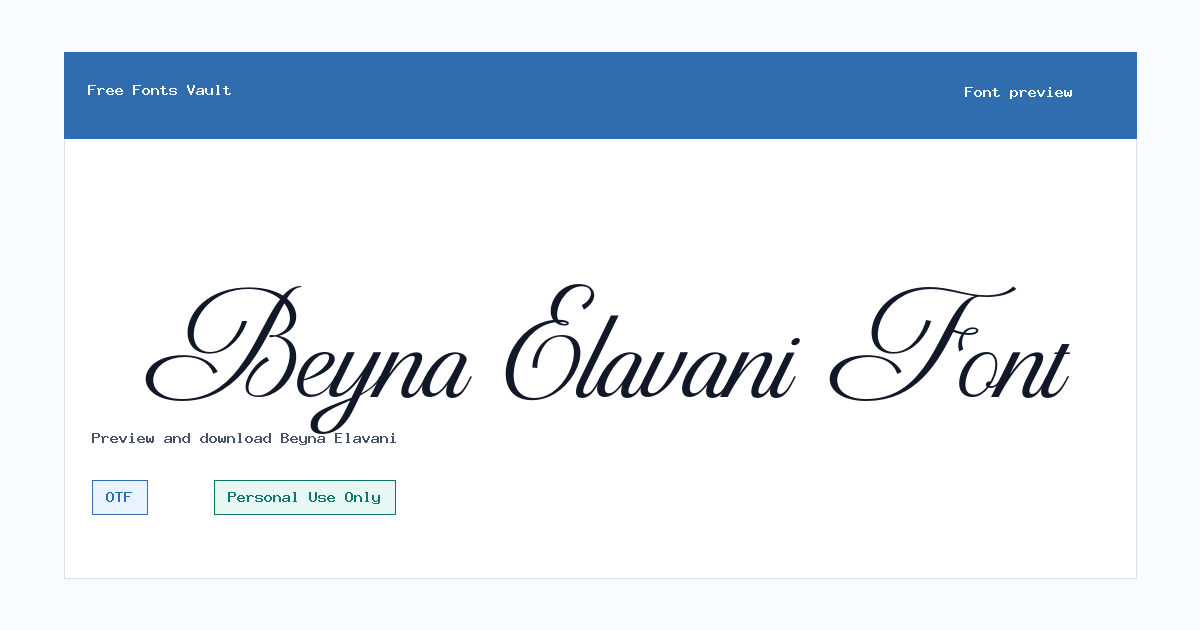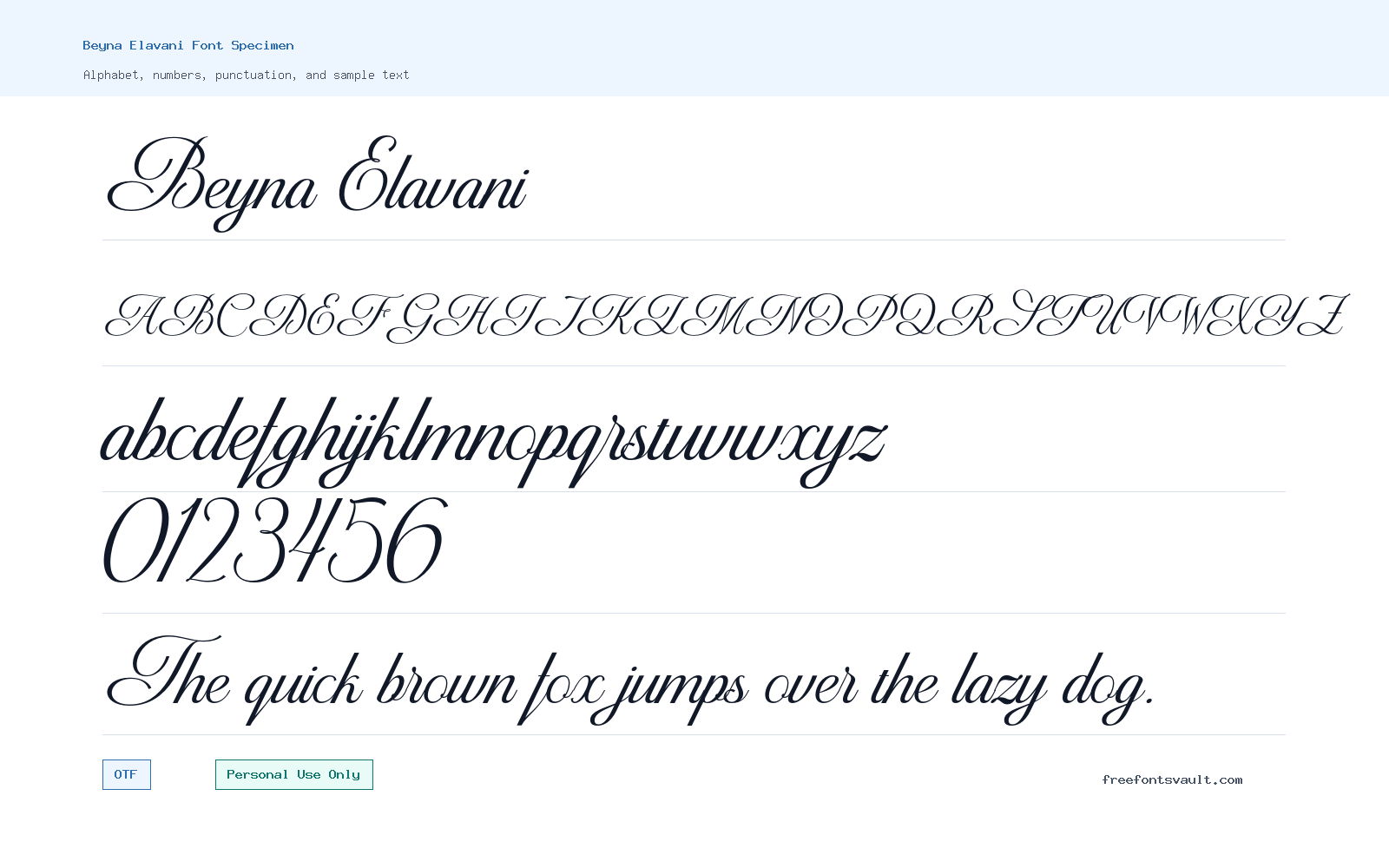
Beyna Elavani
Beyna Elavani font.
Beyna Elavani is a personal-use font duo by Santika, released through Burntilldead – Illustrator & Type Foundry. It comes in two OTF demo styles, giving you a script look and a regular companion style to test in display-focused designs.
About Beyna Elavani
Beyna Elavani is best approached as a decorative duo rather than a long-reading text face. The script style gives the family a handwritten, flowing feel, while the regular style can help balance layouts that need a simpler supporting voice. Because both font files are marked as demo OTF files, it is a good choice for previewing a concept, trying title treatments, or building a personal mockup before deciding whether you need a broader license or a full version.
Use Beyna Elavani where personality matters more than dense readability. It can work well for short names, greeting card text, boutique-style headings, social graphics, quote images, packaging mockups, and logo drafts. Keep the script style for short words or standout phrases, then use the regular style to reduce visual clutter in secondary text. Before downloading, type your own wording into the preview and check spacing, capital letters, punctuation, and any letter pairs that may feel too tight or too loose.
- Display-friendly character suited to short headings, names, mockups, and personal design testing.
- Personal greeting cards, invitations, quote graphics, and social media artwork.
- Logo drafts, packaging mockups, boutique headings, and other short display text.
Test the script and regular styles together before using them in a finished layout. The script style is likely to be strongest at larger sizes and in short phrases, while the regular style can help with supporting words. For clean results, avoid long paragraphs, check readability on mobile screens, and leave enough spacing around decorative letters.
Who designed Beyna Elavani?
Santika is listed as the designer, and Burntilldead – Illustrator & Type Foundry is listed as the foundry.
What is Beyna Elavani good for?
It is most useful for short display text such as names, headings, cards, social posts, packaging mockups, and logo drafts for personal projects.
Should I use Beyna Elavani for body text?
It is better for short display use. For paragraphs or small UI text, pair it with a simpler, highly readable font.